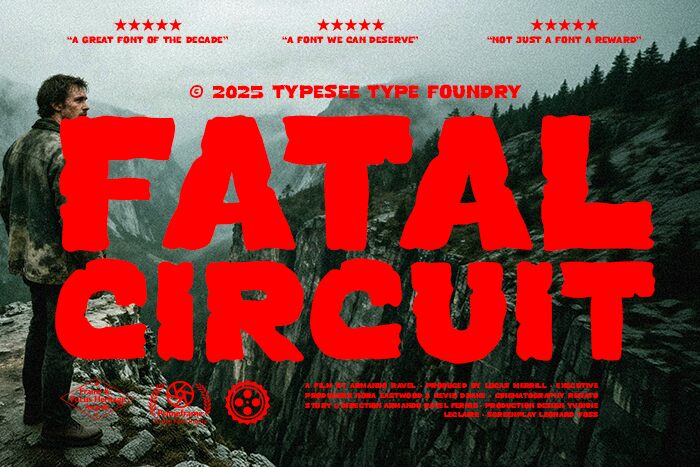
Fatal Circuit font by Typesee Type Foundry is a free distorted/eroded font daintily created to create an impactful visual effect. Fatal Circuit is pixelated, rough, and disrupted to ignite curiosity and leave a memorable impression. It gives the feeling that it has just been crafted in an instinct and with the hand. It is a bold with a heavy weight which makes it perfect for headings more than body text.